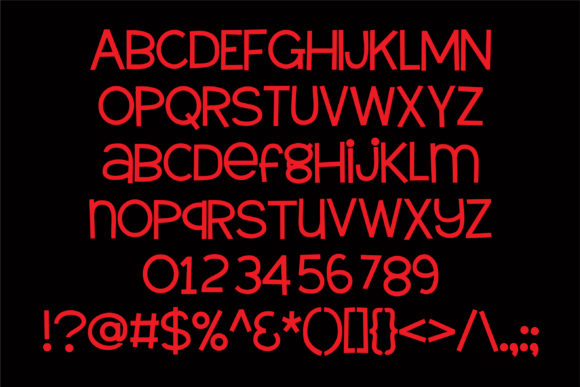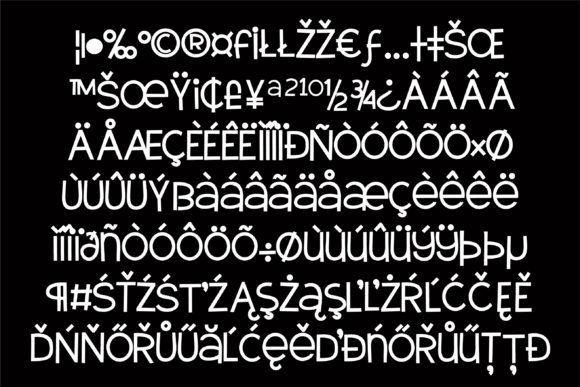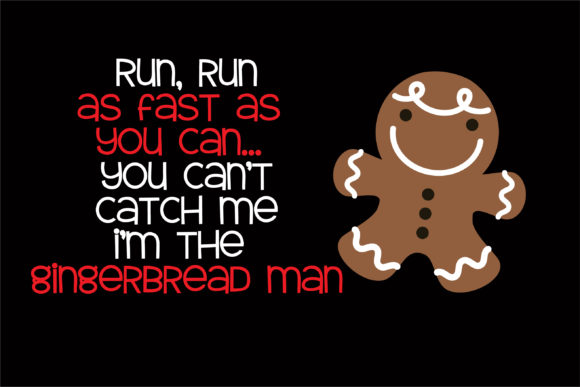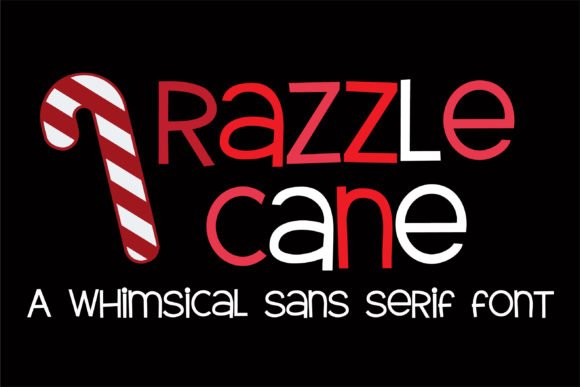
Introduction to Razzle Cane Font
This slightly whimsical sans-serif font is the sister font to ZP Razzle Berry, a serif font.
Use both fonts together for a coordinated look .
Why Choose Razzle Cane Font?